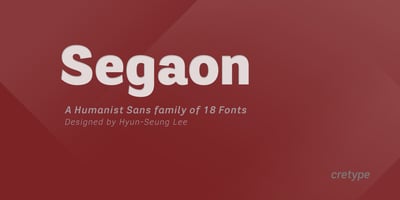
Segaon
Segaon font
Segaon Font Family was designed by Hyun-Seung Lee and published by cretype. Segaon contains 17 styles and family package options. Segaon Family is a humanist sans-serif typeface that is clean, simple and highly readable. The spaces between individual letter forms are precisely adjusted to create the perfect typesetting. Segaon is versatile type family of 18 fonts. Segaon family consists of 9 weights (Thin, ExtraLight, Light, Regular, Medium, Bold, ExtraBold, Heavy & Black) with their corresponding italics. The Open Type fonts contain complete Latin 1252, Cyrillic, Central European 1250, Turkish 1254 character sets. Each font includes old-style figures, proportional figures, tabular figures, numerators, denominators, superscript, scientific inferiors, subscript, fractions and case features. We highly recommend it for use in books, web pages, screen displays, and so on.